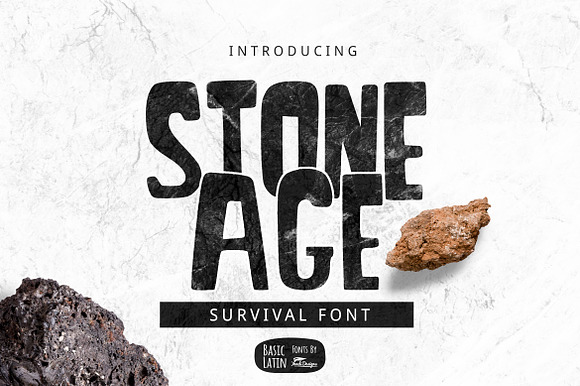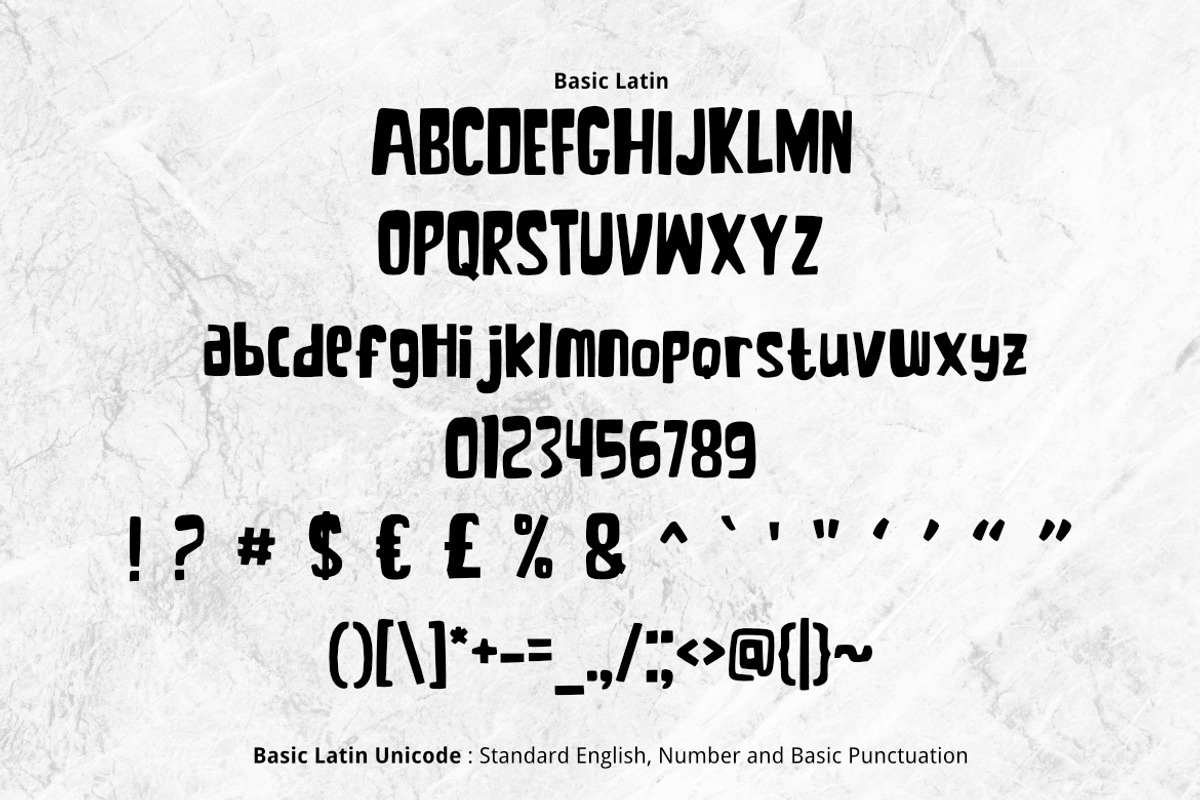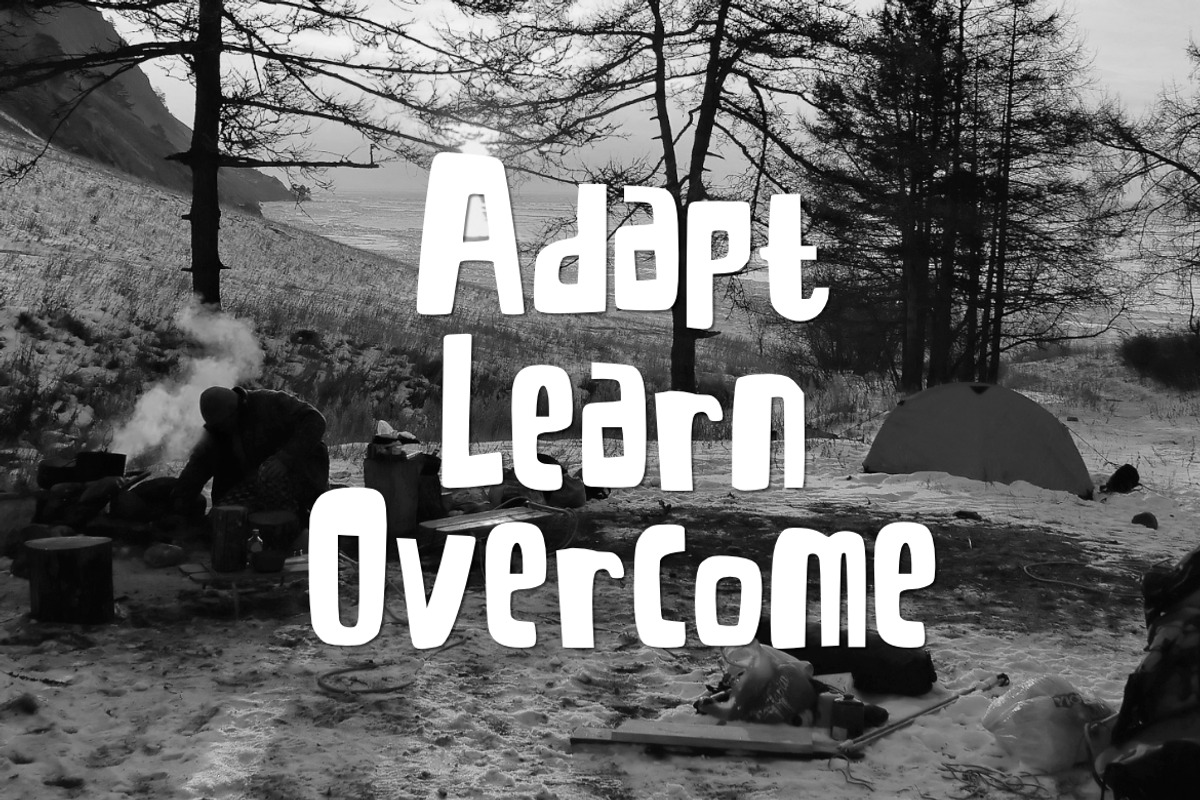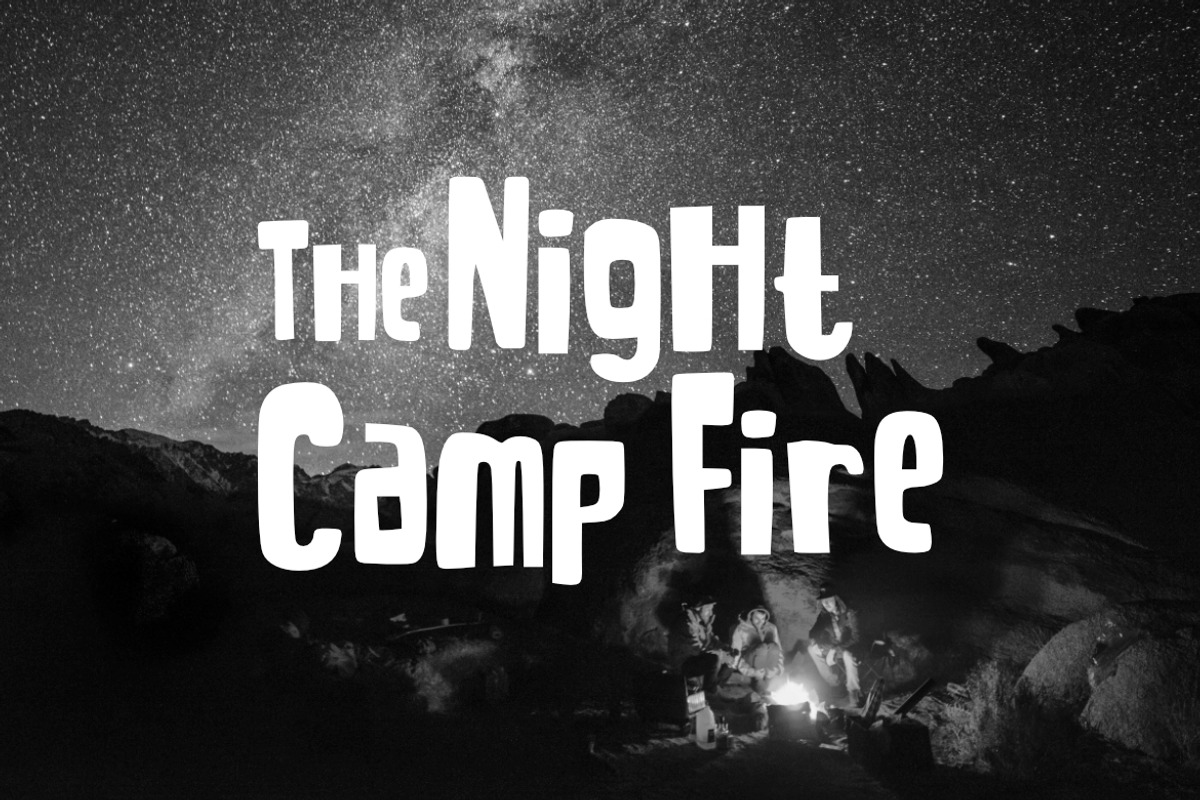
Stone Age Font
Stone Age is bold and playful handwritten font , suitable for many project children book, quotes, logo , heading , title etc. Survival , camping and holiday font.
Stone Age Font by YandiDesigns fits naturally into Branding, posters, packaging, typography.